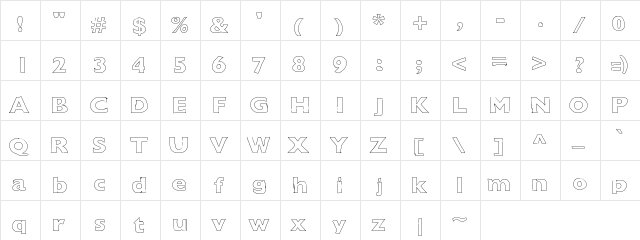
Outline Medium
Outline Family
Outline Medium
Design Context for Outline
Outline is built around its visual character rather than neutral utility - its distinctive forms are designed to make an impression at display sizes.
Font Pairing: Pair with a clean neutral sans-serif for body copy to let Outline's character lead without overwhelming the composition.
Pro Tip: Use Outline exclusively at display sizes - it was designed to be seen, not read at length. Let a neutral companion handle body copy.